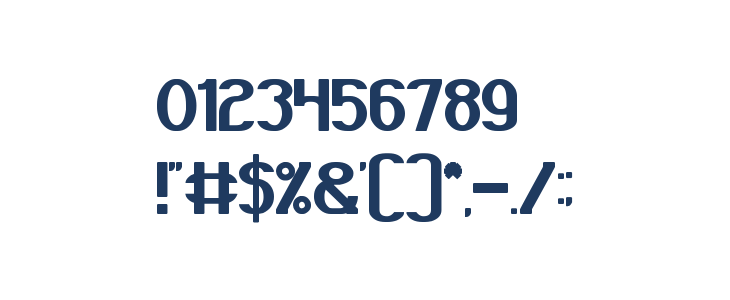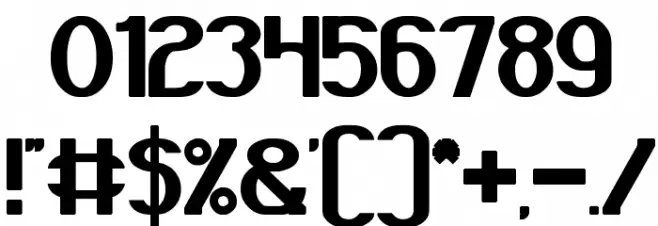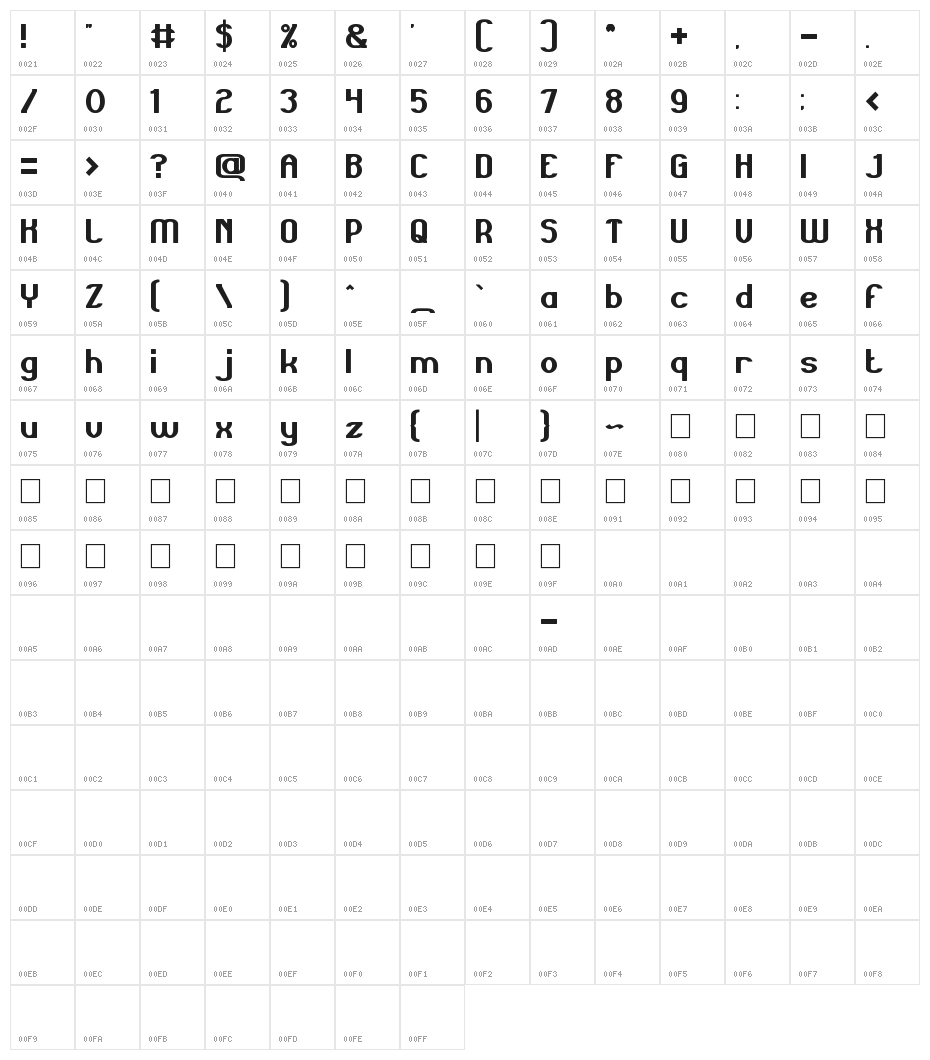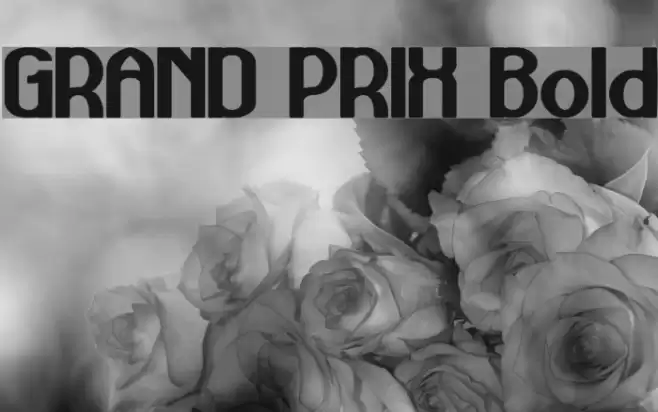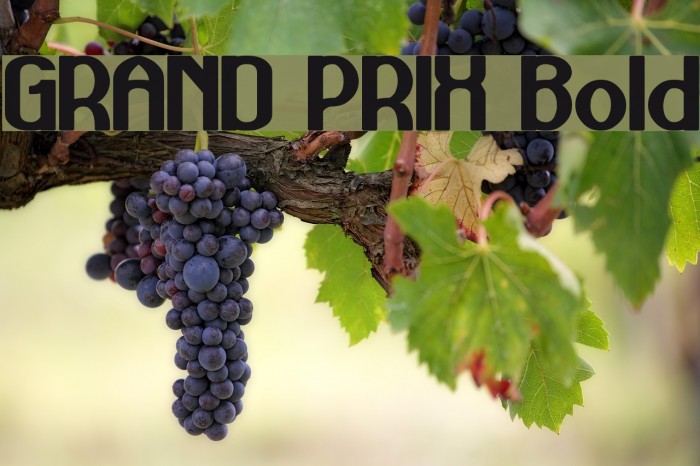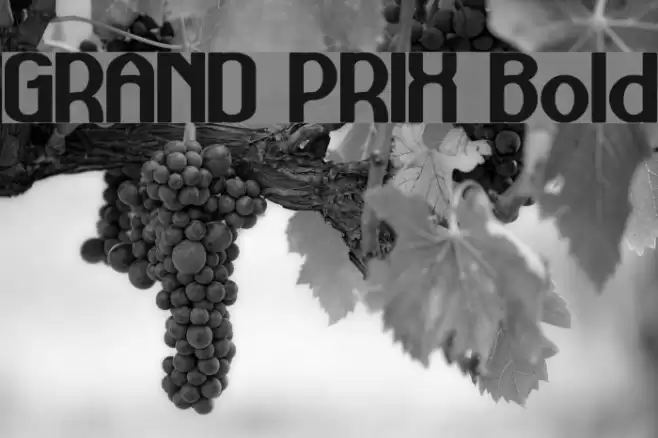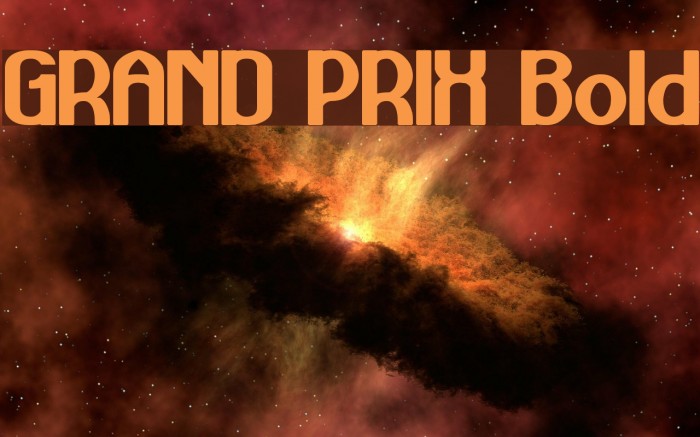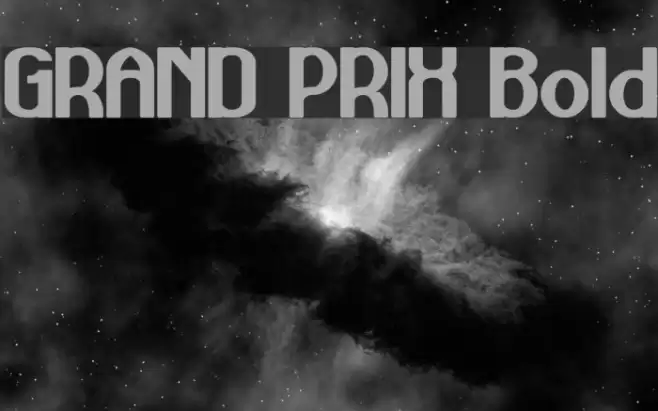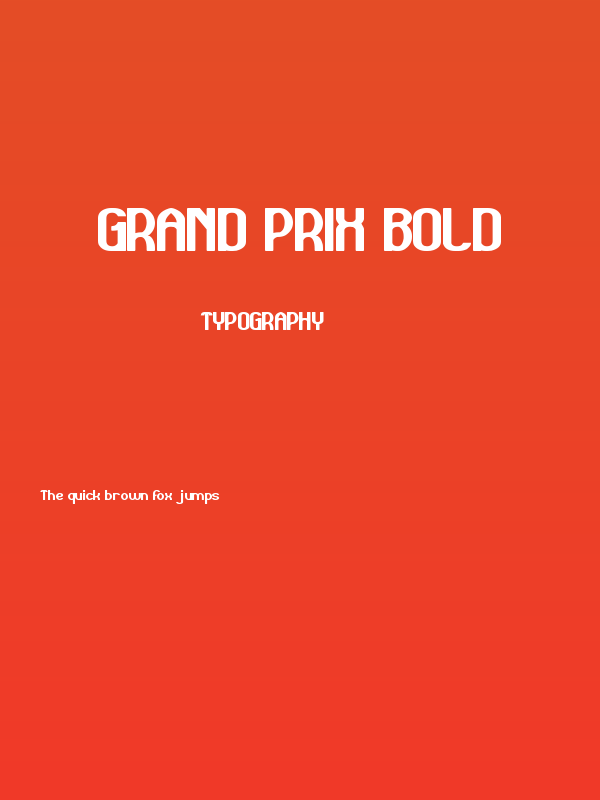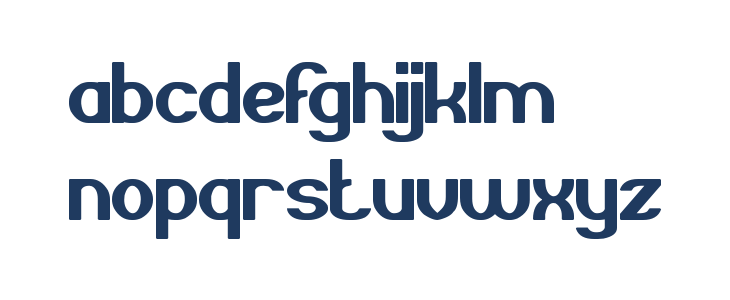
GRAND PRIX Bold Font
GRAND PRIX Bold Description
This font features a bold and robust design, characterized by its thick strokes and rounded edges. The uppercase letters are uniform in height, creating a cohesive and structured appearance. The lowercase letters maintain a similar weight, ensuring readability while adding a touch of modernity. The numerals are consistent with the overall bold style, making them stand out effectively. Special characters are designed with the same attention to detail, providing a comprehensive and versatile typeface suitable for various applications.